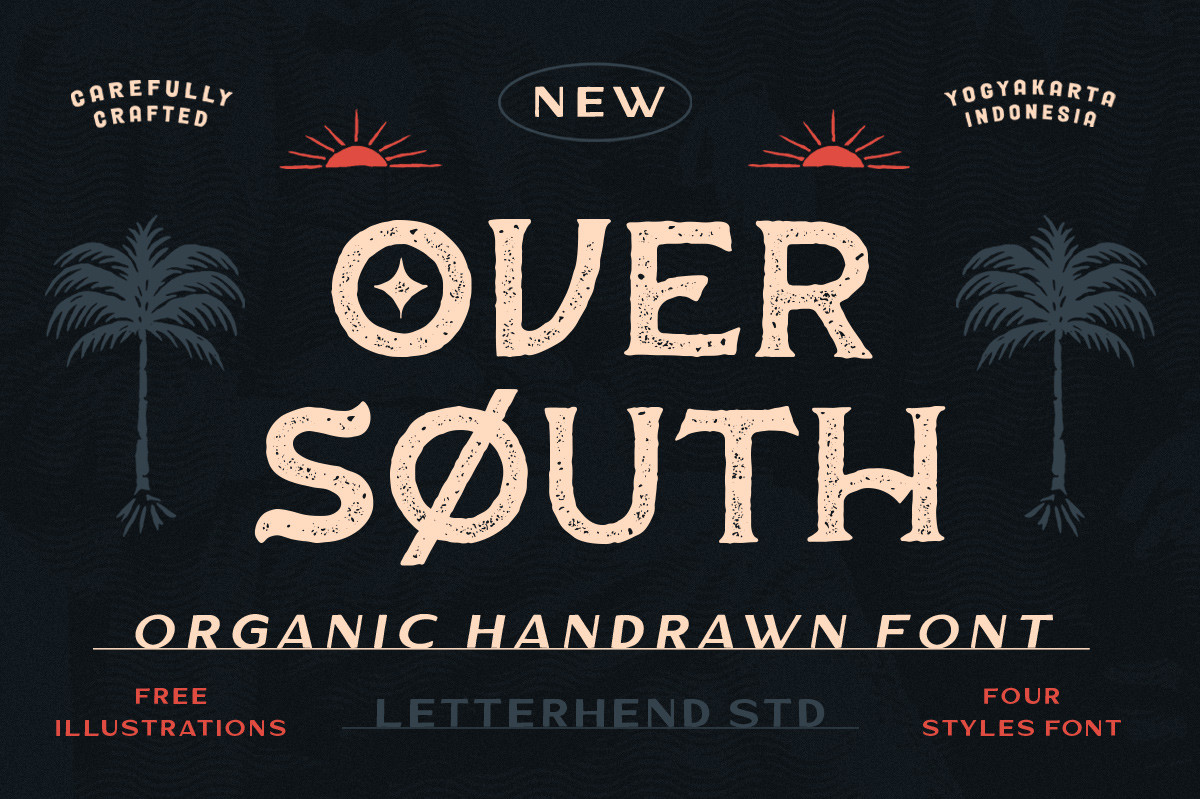
Over South Font + Free Illustration
Over South Font is perfect for country music album covers, southern restaurant branding, barbecue joint signage, vintage americana posters, rustic wedding invitations, bourbon distillery labels, farm-to-table establishments, cowboy boot advertisements, western clothing brands, and authentic southern hospitality marketing. This distinctive typeface works beautifully for bluegrass festival materials, rodeo event posters, antique shop signage, craft brewery labels, southern comfort food packaging, heritage tourism campaigns, and traditional craftsmanship branding.
What makes Over South Font so exciting is its authentic ability to capture the warm spirit and rich cultural heritage of the American South through carefully crafted letterforms. The font features hand-drawn characteristics with subtle weathered textures that evoke feelings of tradition, hospitality, and down-home authenticity. Each character tells a story of southern charm and regional pride, creating immediate emotional connections with audiences who appreciate genuine craftsmanship and cultural authenticity. The distinctive design balances rustic appeal with modern functionality, making it perfect for brands seeking to communicate heritage, quality, and southern values while maintaining contemporary relevance.
The Over South Font family includes multiple weights and stylistic variations that enhance its southern versatility. The collection features light, regular, and bold weights, each preserving the font's authentic character while providing flexibility for various design hierarchies. Additional elements include decorative flourishes, vintage ornaments, and regional symbols that complement the typography perfectly. Extended character sets support diverse applications while maintaining the font's southern personality, and specially designed ligatures create natural text flow reminiscent of traditional hand-lettering techniques.
Whether you're designing for hospitality industries or creating heritage-focused marketing materials, Over South Font Free Download provides the perfect solution for projects requiring authentic southern charm and cultural credibility. This remarkable typeface transforms ordinary text into compelling narratives that celebrate regional traditions and values. The font's southern character and heritage appeal make it ideal for brands that honor tradition, craftsmanship, and authentic experiences, ensuring your designs communicate genuine warmth while connecting with audiences who value cultural authenticity and timeless southern hospitality traditions.